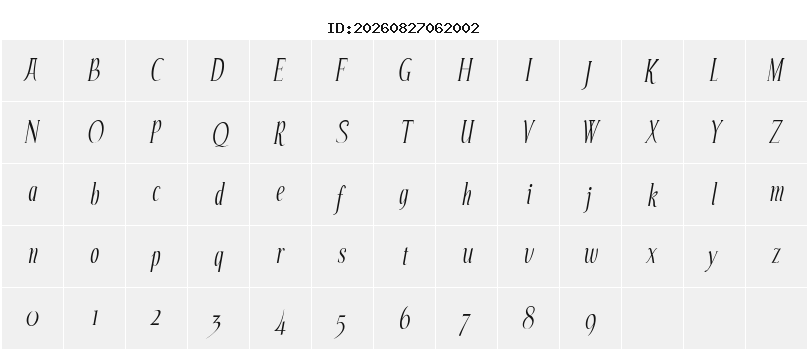
573-CAI978 Preview
About 573-CAI978.ttf
573-CAI978.ttf is a modern, elegant sans-serif font designed for ultimate readability and visual harmony. Perfect for branding, headlines, web design, and print materials.